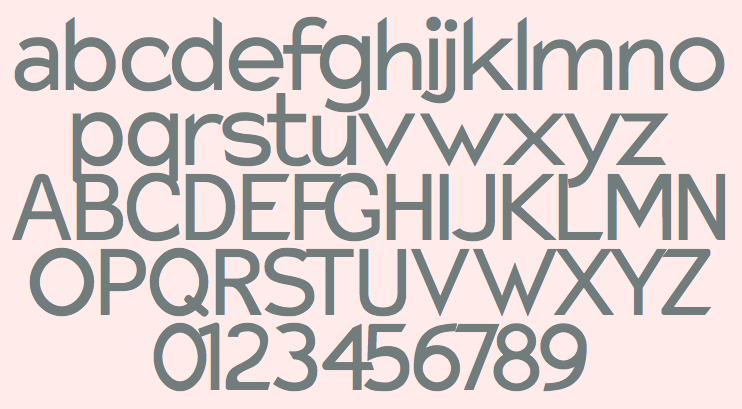
Kinetic Plasma Fonts (was: Cannot Into Space Fonts)
[Robert Jablonski]
Cannot Into Space Fonts is the free font studio of Robert Jablonski (b. 1991), who is based in Indiana. Before this studio, Robert used to make fonts at FontStruct under the alias Rabbid Bahh. Mew Too (b. 1991, Indiana) is co-lead designer for Cannot Into Space Fonts. Jasper (b. 1996) joined in 2015. The fonts include first and foremost the large geometric sans typeface family Nordica (2014) and the large grotesque family Hussar (2014). Other typefaces: Warszawa (2016: a wide display sans), Camo3 (2016, camouflage pattern fonts), Armata (2016, sans), Bolshevik (2016, constructivist), Rabbid Highway Sign II (2015, a sans, followed by IV in 2016), Rocketfuel (2015, by Mew Too), Charger (2015, a sans by Jasper; see also the 2016 typeface Charger Pro), Kabina (2015), Just Breathe (2015), Polan Stronk (2015), Apple Storm (2015), Numb Bunny (2015), Hi (2015, with Mew Too), Hussar Motorway (2015, an arrow font), Hussar Szturm (2015), Hussar Print (2015), Happy Time (2015, transitional; done with Mew Too and forked from TeX Gyre Termes), Distraught (2015), Curly Kue (2014), Filament (2014), Thicker Than (2014), BigWriter (2014), SuplexDriver (2014), Loogie Hawk (2014), Squared Hand (2014), Polan Writings (2014), Waterfire (2014), RDJ Hand (2014, a pixel typeface), Bwahh (2014, FontStruct font), DinKursivschriftEng, DinKursivschriftGhostEng, DinKursivschriftLeftEng, PolanCannotInto (2014, +DIN, +Shqip), PolskiDINKursivschrift (2014), Rabbid-Highway-Sign (2014, FontStruct font). Typefaces from 2015: Warsaw Gothic (a modification of a font by The League of Movable Type, 2009), Sztylet Bold (not a "Cannot Into Space Fonts" font, this heavy geometric sans is a derivative of Hussar by "Crazy Dave" at Plus One Fonts), Trueno (by "Jasper"; an extensive sans family based on Julieta Ulanovsky's Montserrat (2014)), Passageway (based on an Ascender design from 2010), Fog Sans (a derivative of Intel's Clear Sans from 2012), Asimov (a derivative of Roboto), Rocketfuel, Be Happy (a smiley doodle font by Mew Too), CSF Camouflage Kit (dingbats), Stormning Aesir (an outlined version of Stormning, with Mew Too), Blink (a condensed sans in nine styles, by Mew Too), DIN Kursivschrift (an update of the earlier font), Stormning (a Norse runic font co-designed with Mew Too; followed in 2016 by Ny Storming), Analytik, Through The Black, Ruined Serif, Warp Storm, Give A Hoot (2016: sans family). Special mention: Hussar Techniczy (2015), Hussar Ekologiczny (2015), Hussar Paneuropjskich (2015, a hacker font). In Jablonski's own words, it is an April Fool's day joke font. We were inspired to make it by Erik Spiekermann's April Fool's day joke font "FF Mt", which was a disemvoweled version of Meta, and by "Lato Saves Billions", by Lukasz Dziedzic and Adam Twardoch, a Miniaturized version of Lato. Hussar Paneuropjskich (Polish for Paneuropean) is a "universal European font". Designs made with FontStruct: Bwahh, Rabbid Highway Sign, Handwriting series, Waterfire, Numbbunny, Squarish, Proton, Jag Elskar Dig (I Love You), Applestorm, BigWriter, Squared Hand, Gib Font Plox, Blanket, Dictator, Krieg Font, Thicker Than..., HoneyBee, Just Breathe, Reckless Catfish, Tape, Polanwritings, Filament Serie, Curlykue, Børk Börk, Loogie Hawk, Take Off, Piccolo, Suplexdriver, Kabina, Polanstronk, Subtitle, CiSf OpenHand, Mewtoo Hand, Distorted series, I Like Turtles, Analytik, Koop, Carwash, Anarchic Type, Messed Up, Drag You Down, Blindside, Through The Black, Warpstorm, Ruined Serif, Distraught, Photofail, Sprayer, PlasticEraser. Typefaces from 2016: Ember, Retroscape (a pixel typeface made with FontStruct). Typefaces from 2018: Hussar Motorway (arrows), Anxiety, Mew Too Catdings. Typefaces from 2019: Connection II (pixel font). Fontspace link. FontStruct link. Dafont link. Open Font Library link. One Drive link to download all his fonts at once. |